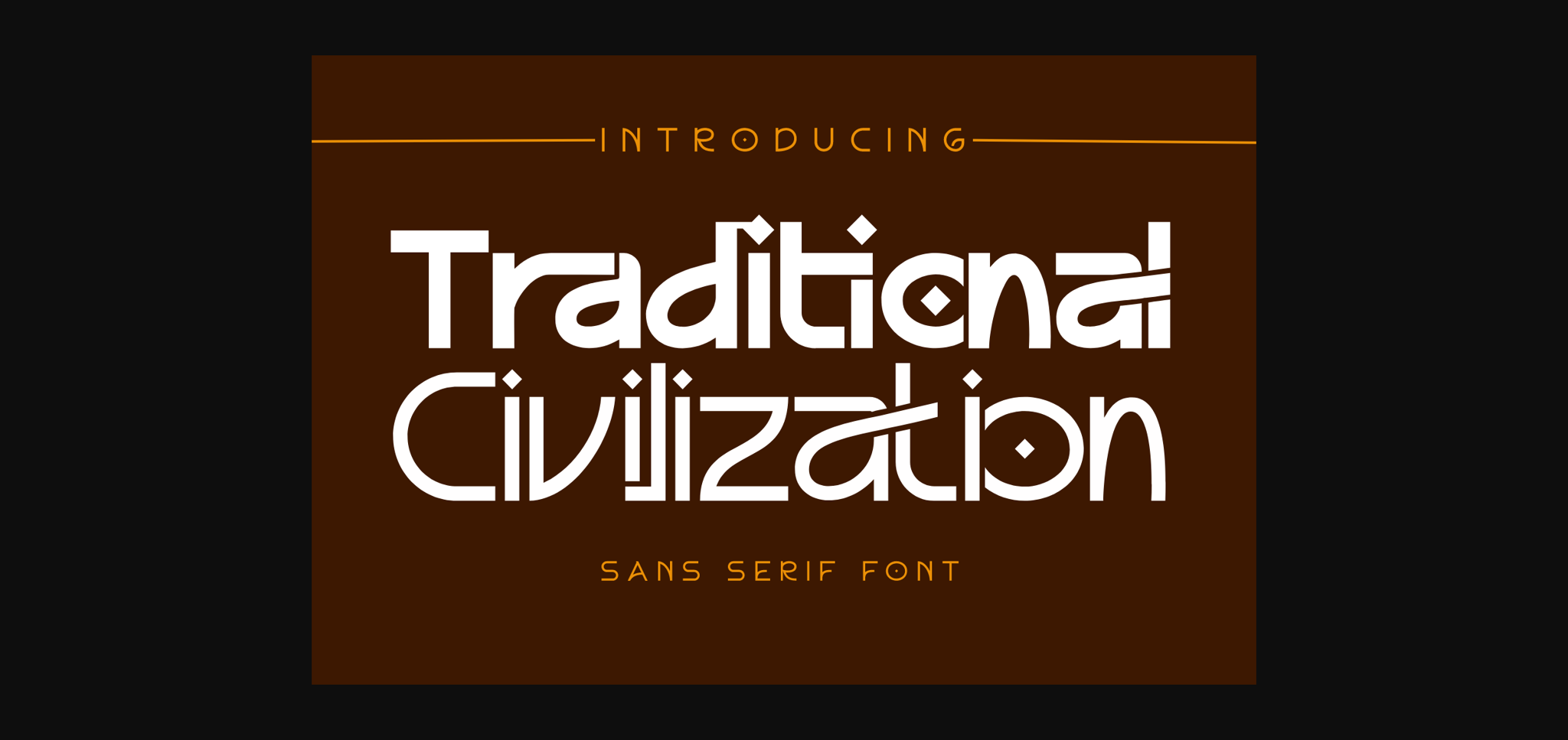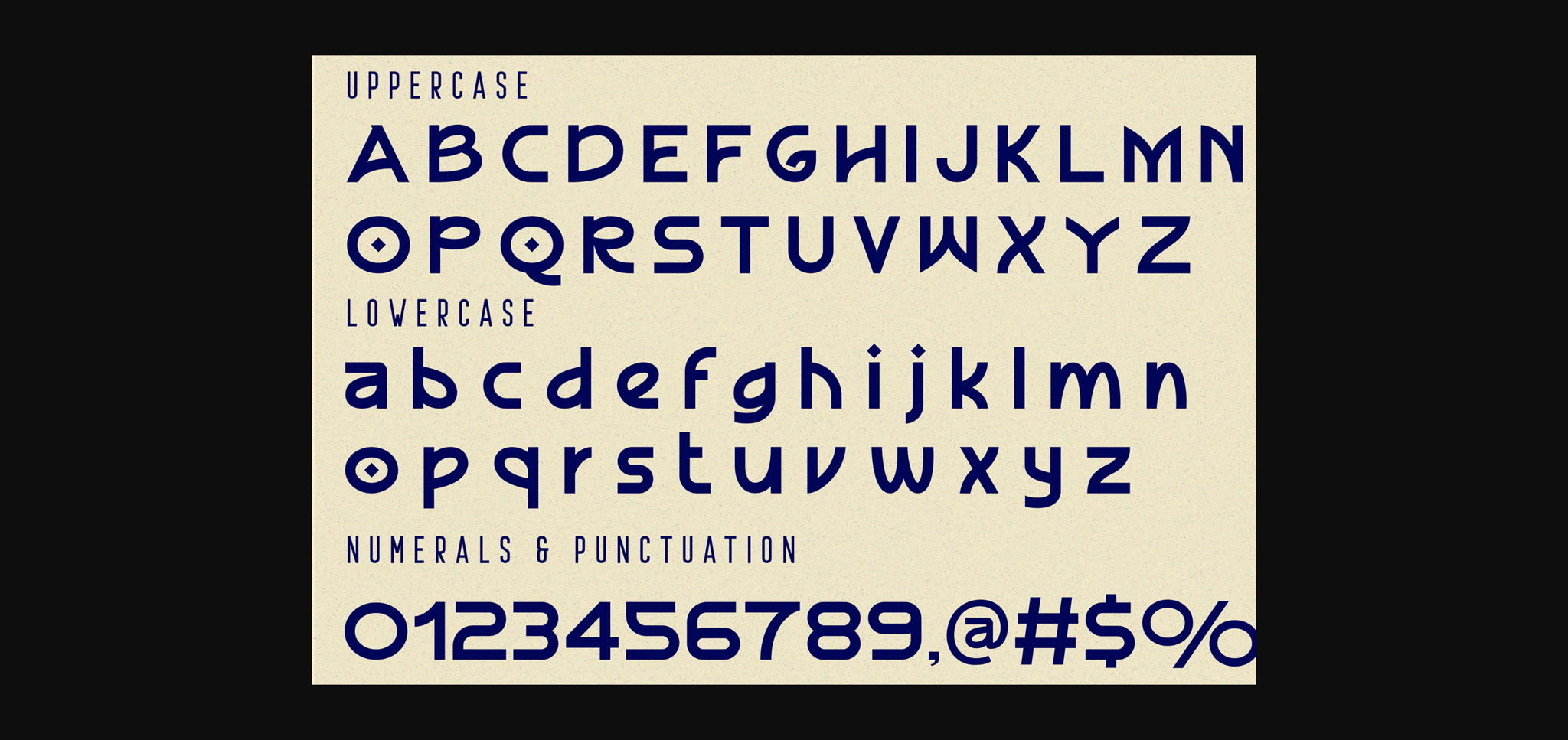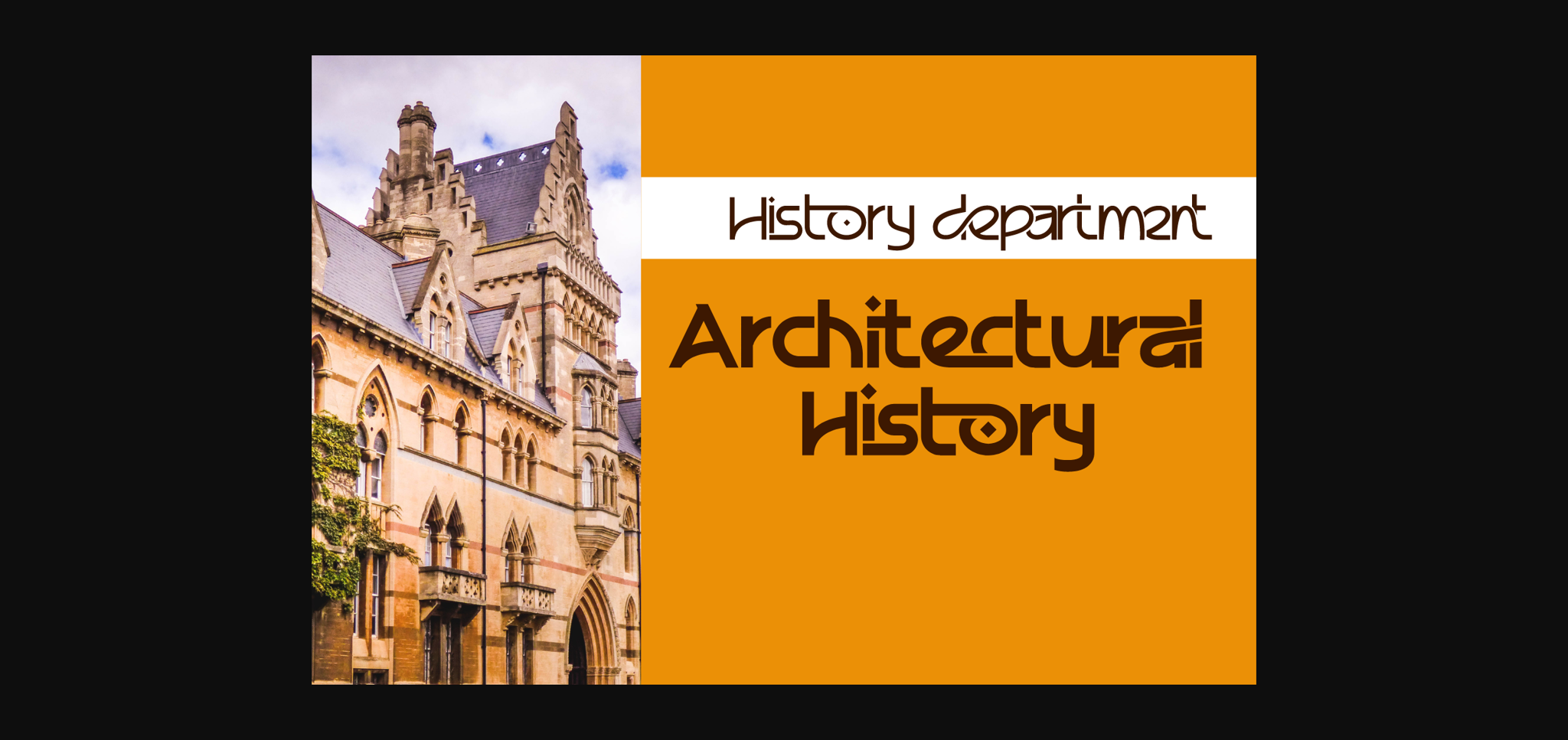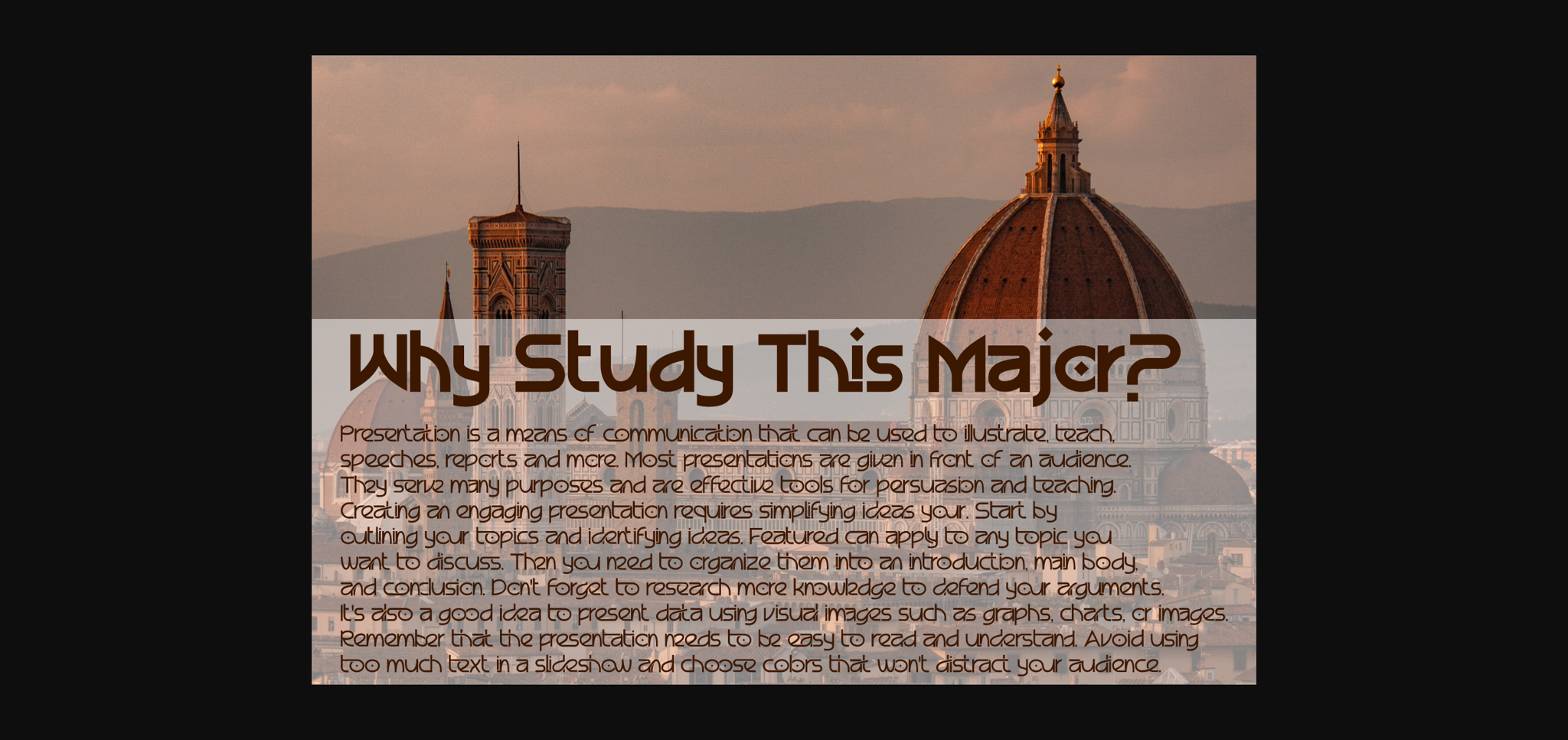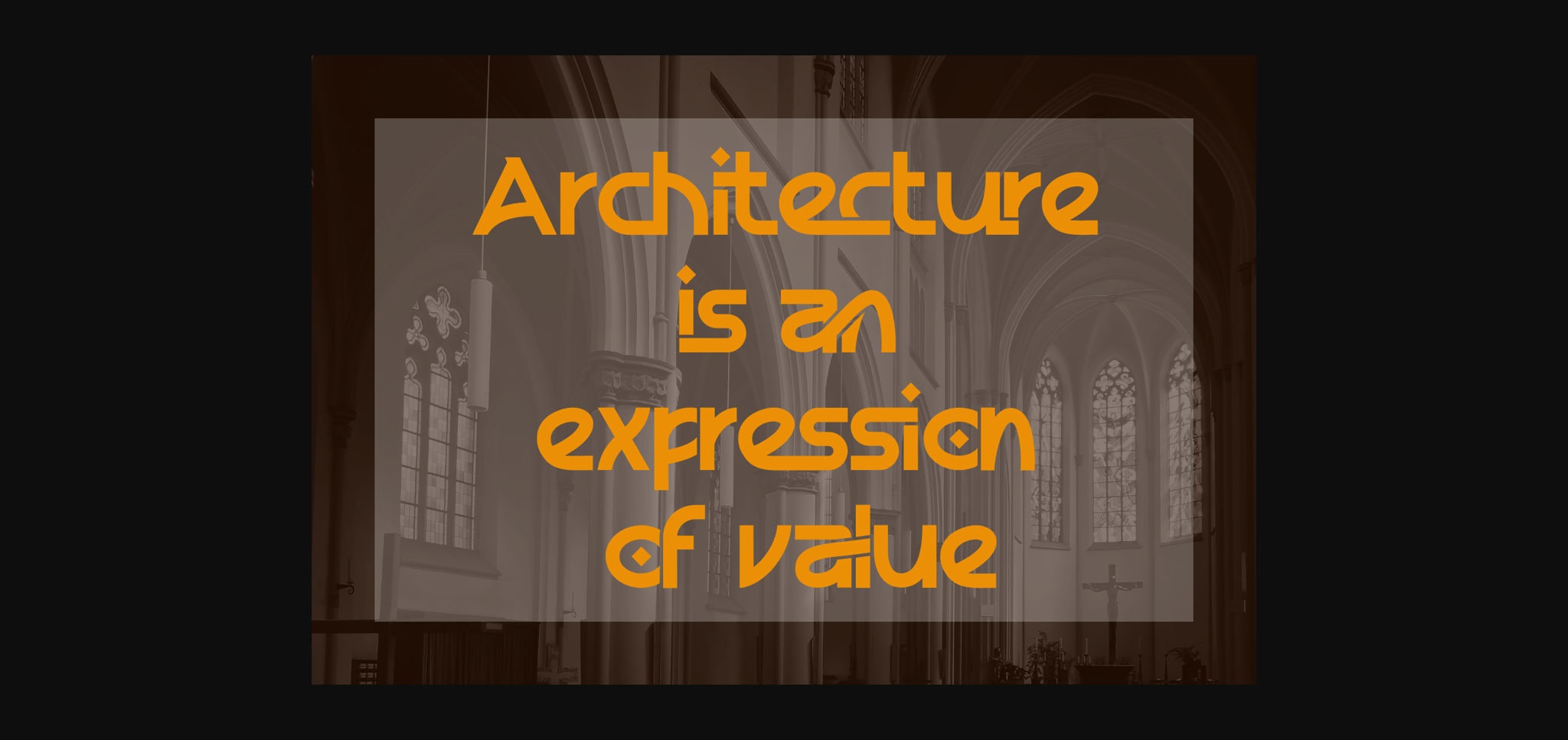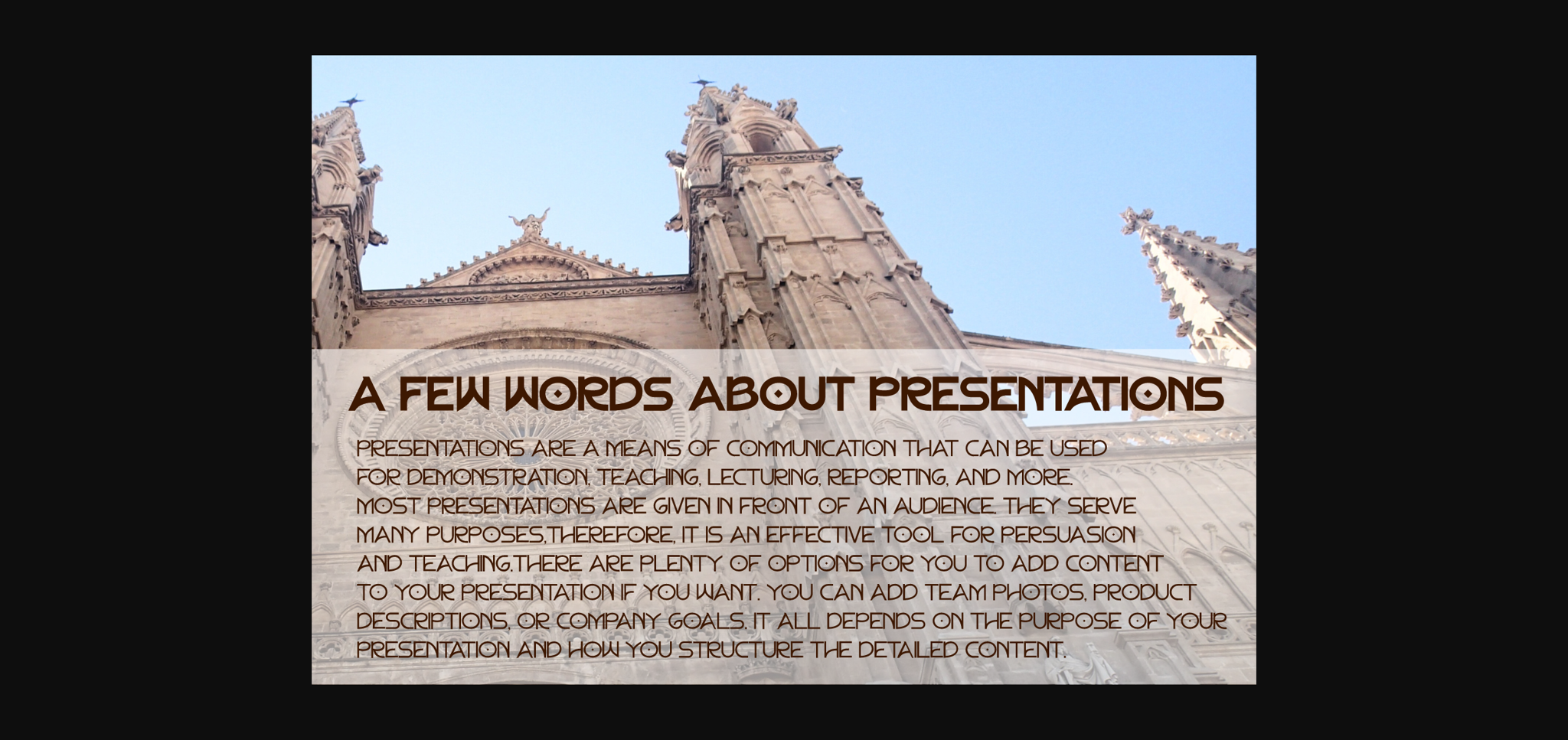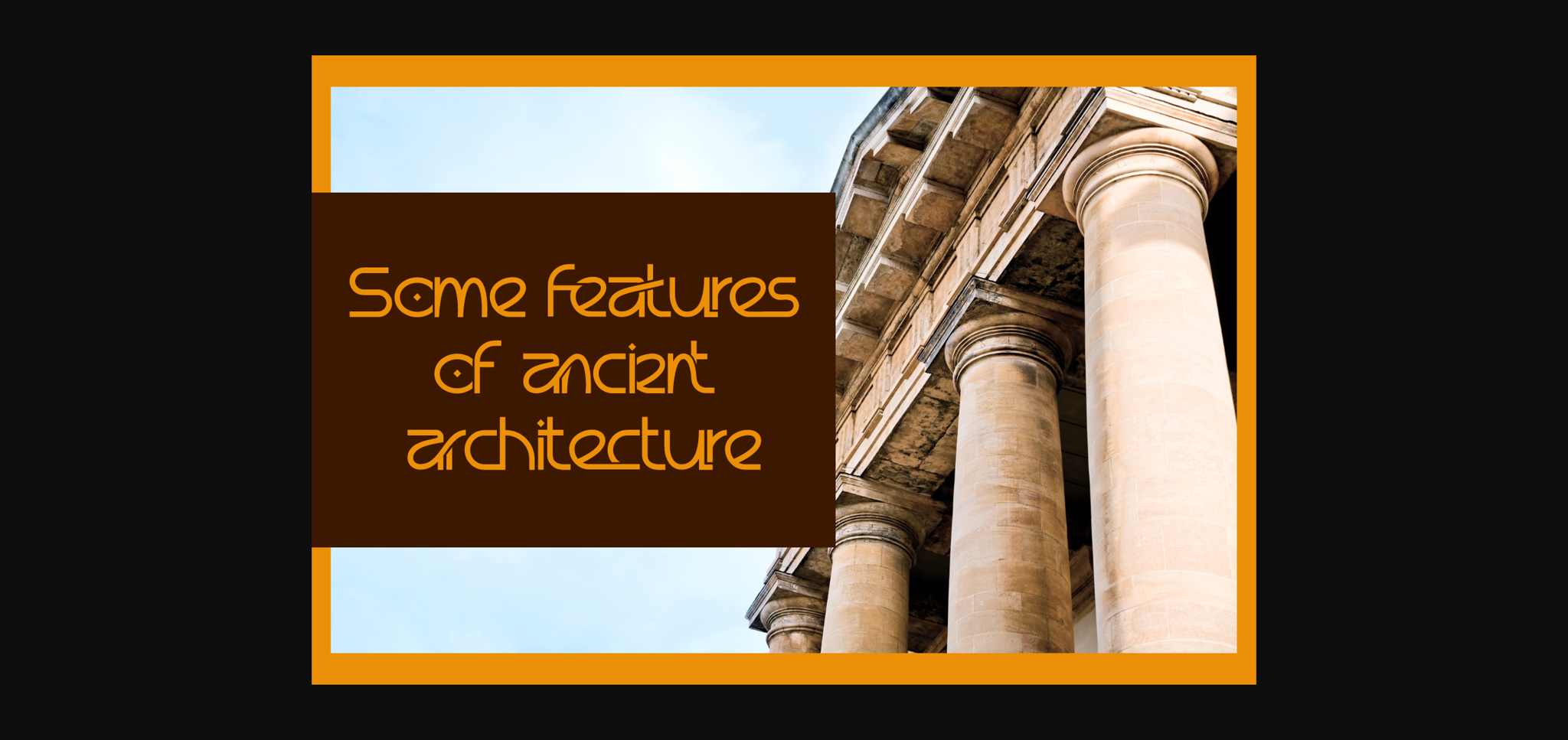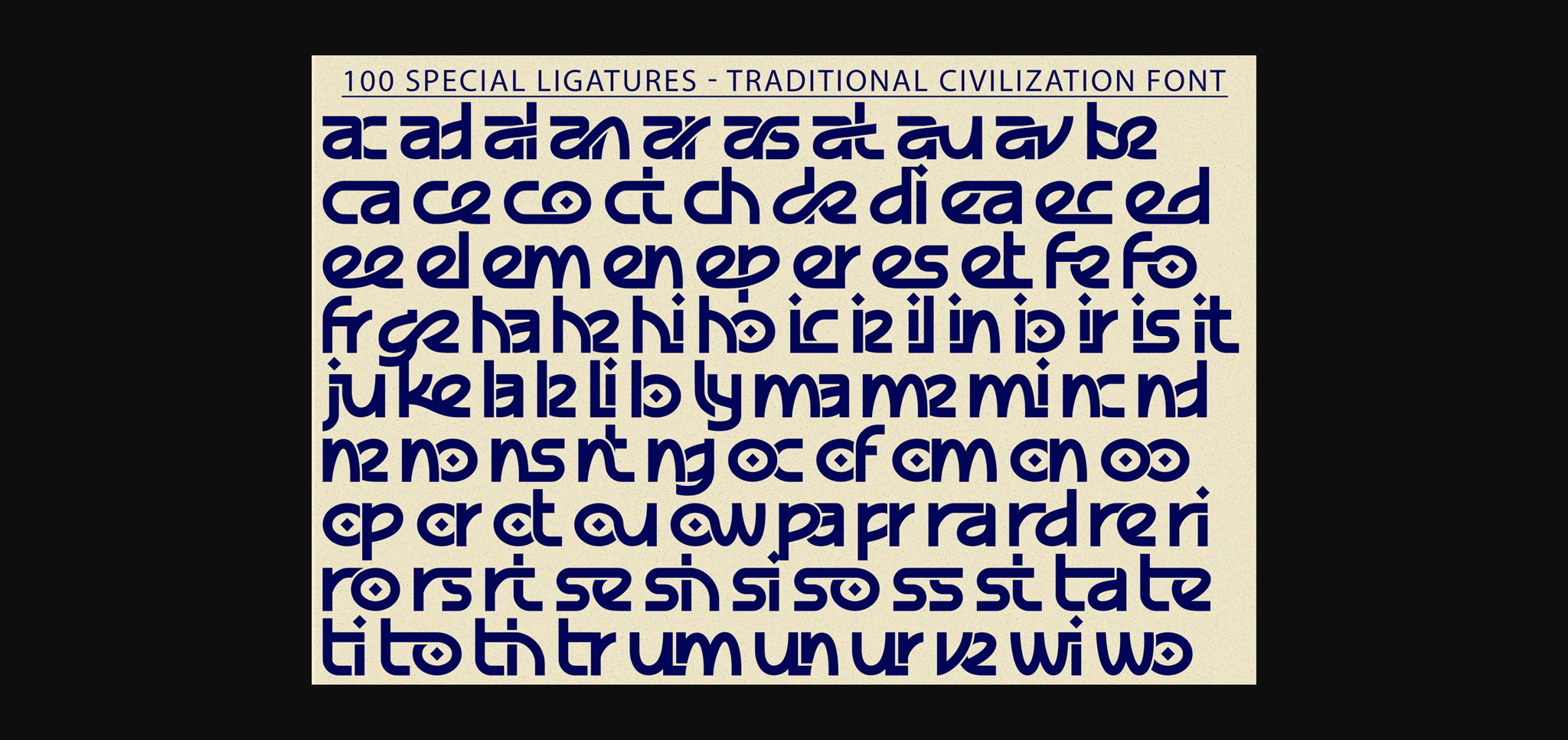
Traditional Civilization Font
About Traditional Civilization Font
Traditional Civilization Font is a cool and authentic sans serif font family. Four weights plus matching italics. Simple geometry with nuance that adds warmth. A super unique ligature font that you wont forget! It’s got hundreds of characters and ligatures plus all those European letters! These fonts are perfect for cover designs, posters, UI, branding, fashion, logos, social media templates, packaging, etc.
Traditional Civilization was built with OpenType features and includes 100 ligatures, alternate, numbers, punctuation, and it also supports other languages.